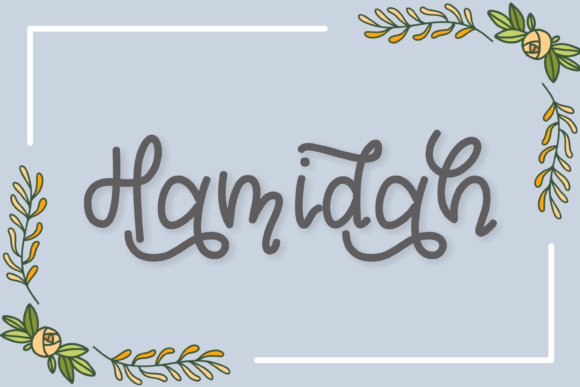
Indulge in the captivating beauty of Hamidah, a script font that gracefully dances across your creations. Inspired by the art of handwritten letters, Hamidah emanates an aura of elegance that will elevate your designs to new heights. Its delicate strokes and playful curves evoke a sense of whimsy and charm, making it the perfect choice for adding a personal touch to your projects.
Crafted with precision and love by the talented hands of nuraisyahamalia1729, Hamidah is a font that speaks to the heart. Its organic flow invites you to embrace your creativity and craft designs that resonate with your unique style. Whether you're creating eye-catching DIY signs, heartfelt invitations, or captivating social media posts, Hamidah is the perfect companion to bring your vision to life.
Let Hamidah's enchanting script guide you as you explore the world of typography. With its versatility and timeless appeal, this font will become your go-to choice for adding a touch of elegance to any project. Its seamless compatibility with design software ensures effortless integration into your creative workflow.
Embrace the beauty of handwritten artistry with Hamidah. Let your imagination soar and create designs that captivate and inspire. From the moment you download this enchanting font, you'll discover a world of endless possibilities.